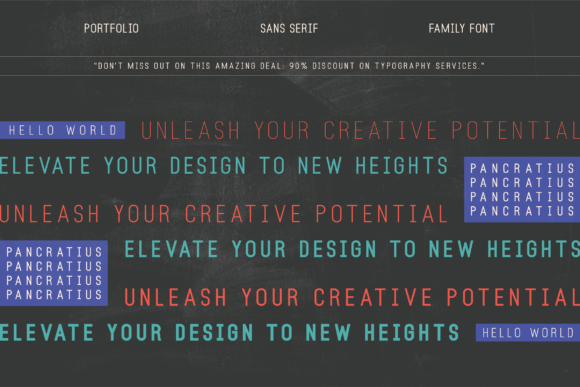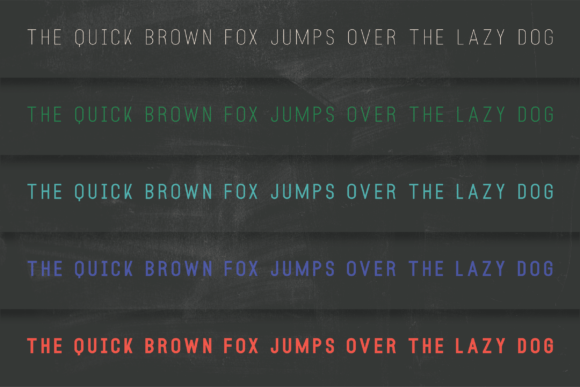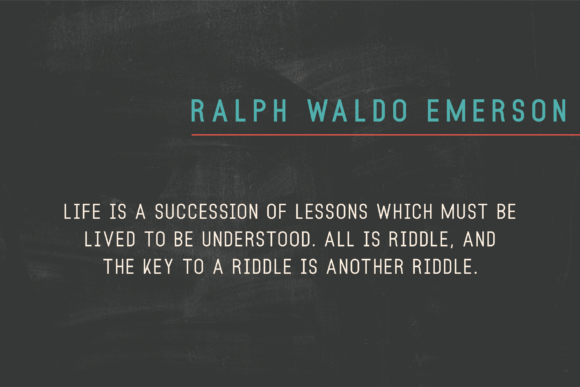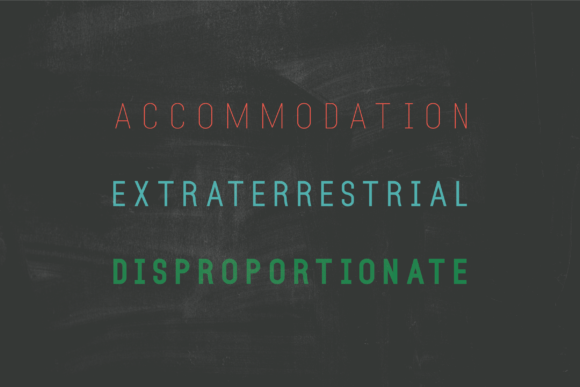
Introduction to Pancratius Font
Have you ever stared at a blank canvas, waiting for the perfect font to bring your creative project to life? We’ve all been there – the frustration of endless scrolling through font libraries, searching for that elusive combination of style and sophistication. But what if I told you that your search is over?
Meet Pancratius Font, a game-changing sans-serif font family that’s about to revolutionize your design workflow. With its sleek, modern aesthetic and unparalleled versatility, Pancratius Font is the ultimate design resource for creatives. Whether you’re working on a high-end magazine, a film poster, or a logo, Pancratius Font adapts seamlessly to any project, offering a transparent background and high-quality results that will elevate your designs to new heights.
Pancratius Font
- High-quality font designed for creative projects, ideal for use in graphic design, digital art, and publishing.
- Features a transparent background, allowing for seamless integration into various design elements and compositions.
- Designed to be highly legible, with clear and crisp letterforms that make it perfect for use in body text and titles.
- Supports a wide range of languages, making it a versatile font for global design projects.
Honest Review: Pancratius Font
I recently stumbled upon the Pancratius Font, and I must say it’s been a delightful discovery for my creative projects. As a designer, I’m always on the lookout for high-quality fonts that can elevate my designs.
- ✨ Unique design: The Pancratius Font boasts a distinct and quirky aesthetic that sets it apart from other fonts in its class.
- ✨ High-quality glyphs: The font’s glyphs are meticulously crafted, ensuring a smooth and professional look in any design.
However, I did encounter a few limitations.
- ⚠️ Limited language support: Unfortunately, the Pancratius Font only supports a limited range of languages, which might be a drawback for designers working on multilingual projects.
- ⚠️ Transparent background: The font’s transparent background can sometimes make it difficult to use in designs with complex backgrounds.
Overall, the Pancratius Font is a fantastic design resource that’s perfect for creative projects. Its unique design and high-quality glyphs make it an excellent choice for designers looking to add some personality to their work. While it has some limitations, I believe the Pancratius Font is well worth the download.
Pancratius Font
Tips for Getting the Most Out of Pancratius Font
To get the most out of the Pancratius Font, use it in combination with other design elements to create a cohesive and visually appealing design. Experiment with different font sizes and styles to add depth and interest to your design.
The Pancratius Font is perfect for creating stunning graphics and designs for your website, social media, or marketing materials. It’s also great for creating professional-looking presentations and documents.